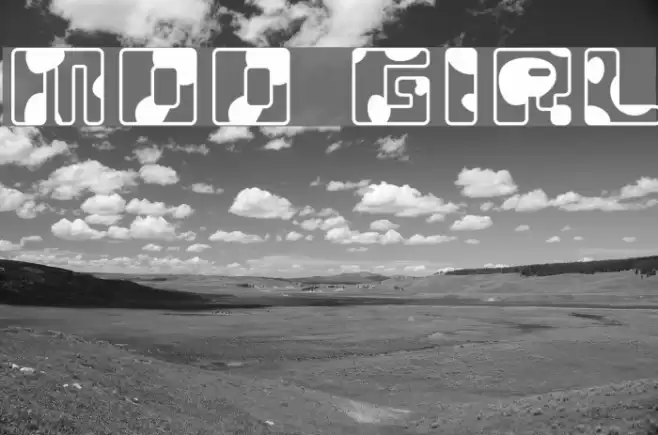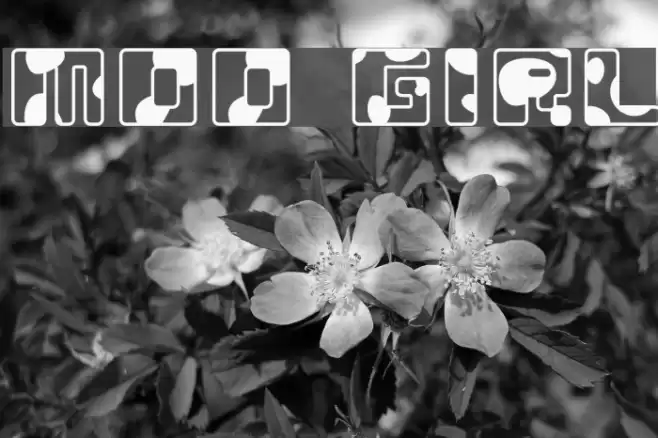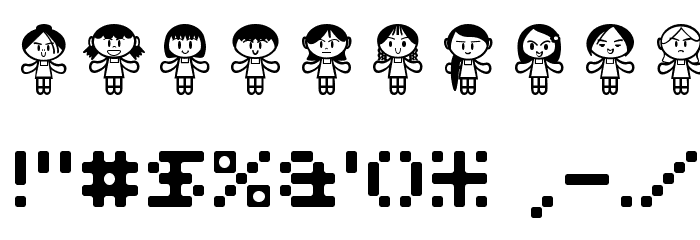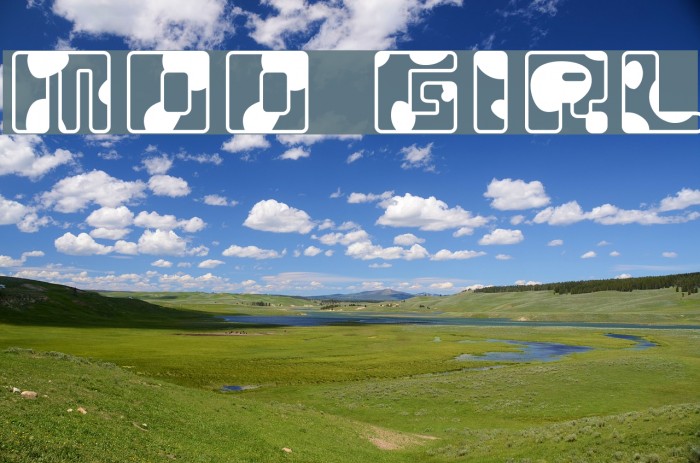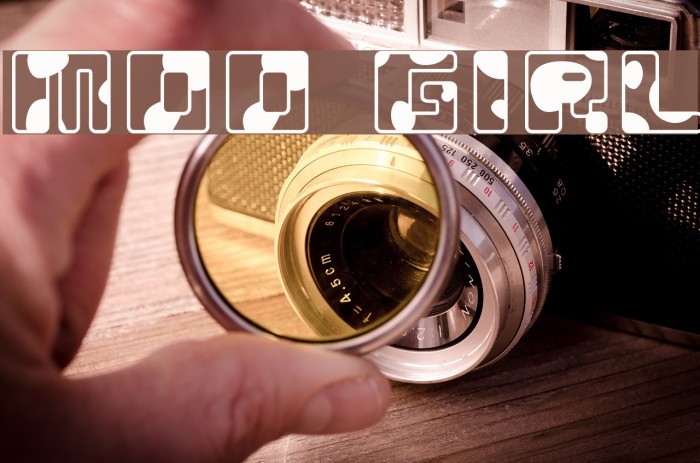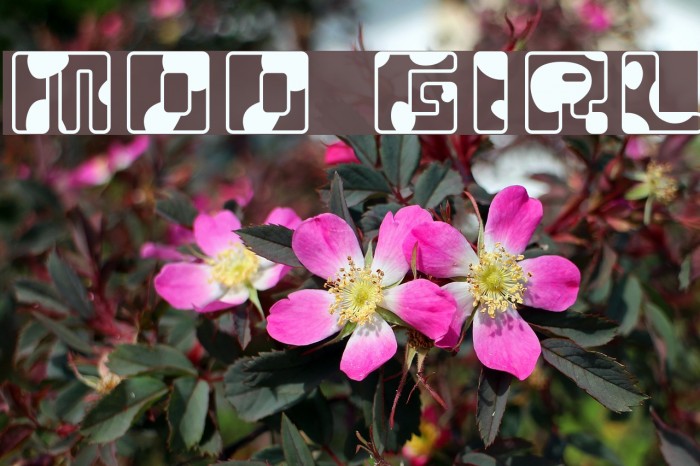
MOO GIRL Font
MOO GIRL Description
This font features a playful and unique design, characterized by its bold, blocky letters with irregular, rounded cutouts that create a cow-like pattern. The uppercase and lowercase letters maintain a consistent style, with each character displaying a combination of solid and hollow sections. The numbers and special characters follow the same aesthetic, ensuring a cohesive look across all elements. The font's whimsical nature is further emphasized by the inclusion of cartoonish character illustrations, adding a fun and lighthearted touch. This font is ideal for projects that require a distinctive and eye-catching appearance.
A playful, cow-patterned font with bold, blocky letters and whimsical character illustrations from Uncategorized fonts.
- Proposed Projects: Ideal for children's books, playful branding, party invitations, and creative posters.
- Overall Style: Playful, Whimsical